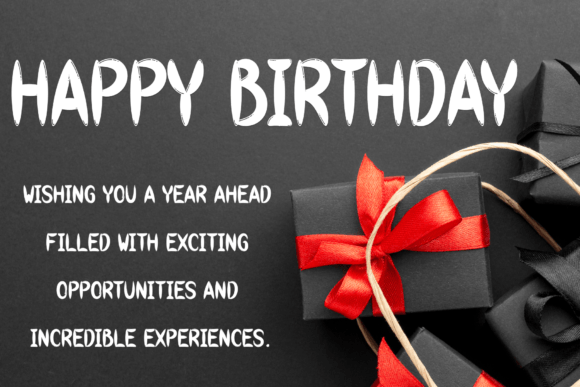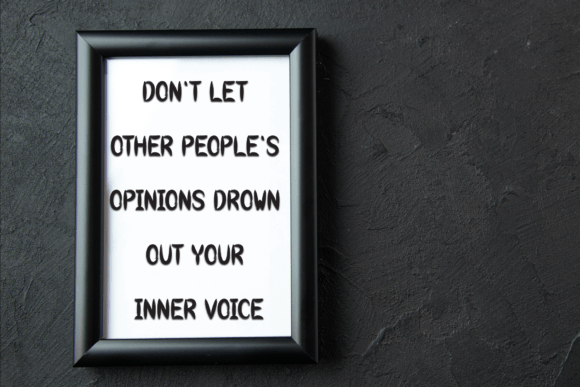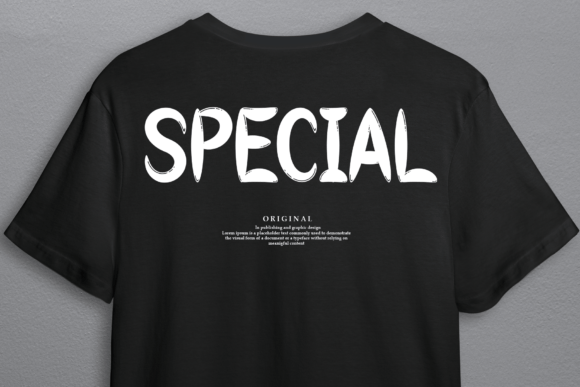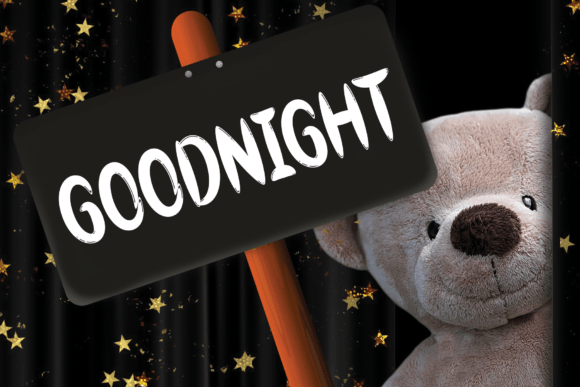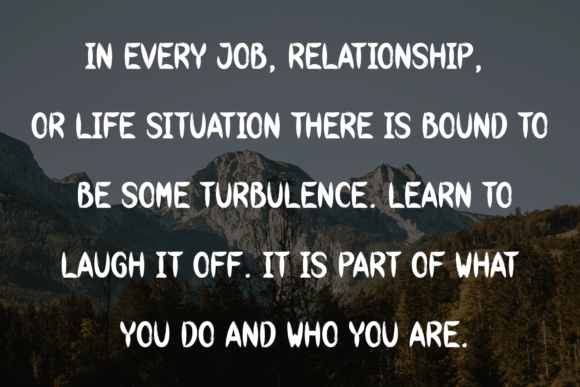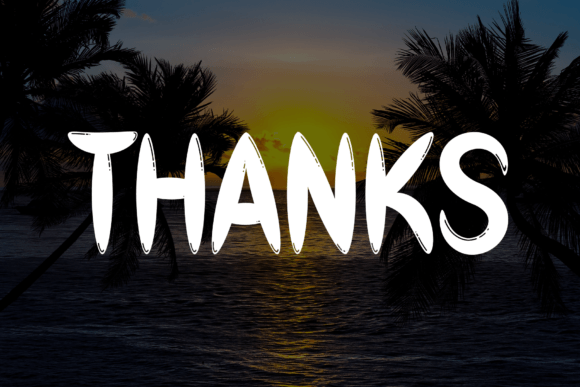
Where Creativity Meets Serenity: Introducing Beach Scenery Font
Do you ever find yourself lost in a sea of ideas, with a blank page staring back at you, begging for inspiration? For many creatives, the key to unlocking that perfect design lies in the subtle nuances of typography. Imagine yourself strolling along a sun-kissed beach, the sound of waves gently crashing against the shore, and the warm sand beneath your feet. It’s in these serene moments that the perfect font can emerge.
Enter Beach Scenery Font, a charming display font designed to evoke the carefree spirit of a beachside retreat. With its playful, easy-to-read design, this font is perfect for a wide range of creative projects, from crafting and digital design to presentations and greeting cards. Whether you’re a seasoned designer or a hobbyist, Beach Scenery Font is sure to become your go-to choice for any occasion.
Key Features of Beach Scenery Font
- Font Style: A unique, hand-drawn font that captures the essence of a serene beach atmosphere.
- Unique Characteristics: Features a subtle wave-like texture and a distressed effect, giving it a beachy, weathered look.
- Character Set: Includes a comprehensive set of characters, including uppercase and lowercase letters, numbers, and punctuation marks.
Beach Scenery Font Review
I recently had the chance to work with the Beach Scenery Font, and I must say it’s a unique addition to any design project. ✨ The font’s casual, laid-back vibe immediately transports me to a sunny beach day, which is perfect for any project that requires a carefree atmosphere.
- ✨ The Beach Scenery Font’s versatility – it can be used for everything from headings to body text, and it still manages to convey a sense of relaxation.
- ✨ The font’s creative and playful personality, which is perfect for branding and marketing materials.
- ✨ The high-quality vector graphics, which ensure crisp and clear text at any size.
However, I do have to mention some limitations:
- ⚠️ The font may not be the best choice for formal or professional projects, as its casual vibe may come across as unprofessional.
- ⚠️ Some users may find the font’s irregular shapes and letterforms distracting or difficult to read, especially at smaller sizes.
Overall, I think the Beach Scenery Font is a great choice for designers who want to add a touch of whimsy and fun to their projects. While it may not be suitable for every project, it’s definitely a great option for anything that requires a relaxed, beachy feel.
For best results, use the Beach Scenery Font for titles, headings, and short paragraphs.
It’s ideal for beach-themed designs, summer promotions, and travel-related projects.
Yes, the Beach Scenery Font is a highly customizable font that supports a wide range of OpenType features, including ligatures, swashes, and stylistic sets. You can use design software like Adobe Illustrator or Photoshop to customize the font and create unique typography for your designs.